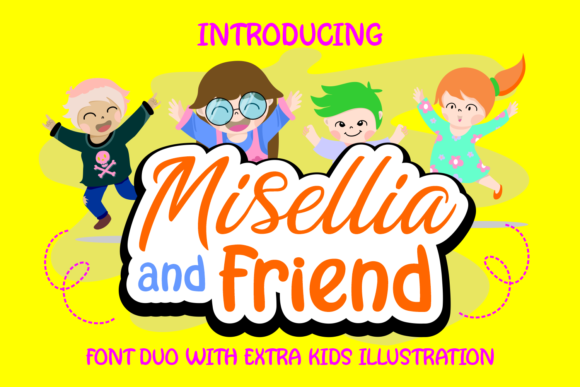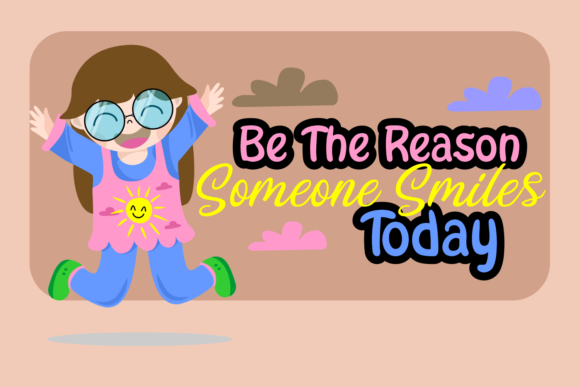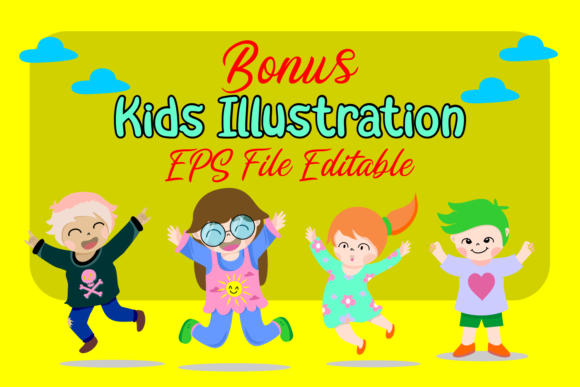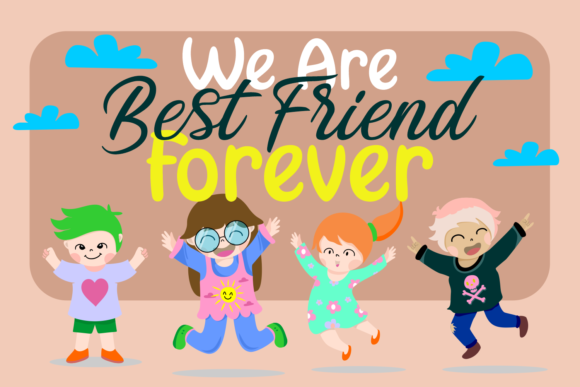
HomeScript FontsMisellia and Friend Duo Font Script Fonts Misellia and Friend Duo Font FacebookXPinterestWhatsApp Misellia and Friend Duo Font Poster 2 Misellia and Friend Duo Font Poster 3 Misellia and Friend Duo Font Poster 4 About Misellia and Friend Duo Font Misellia and Friend is a friendly and cute script font duo that works perfectly for kids’ crafts! DOWNLOAD ON CREATIVE FABRICAThis font is sold and delivered by Creative Fabrica. Font Canyon may earn a commission if you buy through this link. People also explored Sweet Home Font Leightonz Font Ancient Script Font Torgan Font Bangkebui Hand Cream Font December Pastel Font Baby Sillentha Script Font Madrosah Font 273 0 TagsMisellia and Friend Duo Font Previous articleSansino FontNext articleGwothmey Font LEAVE A REPLY Cancel reply Comment: Please enter your comment! Name:* Please enter your name here Email:* You have entered an incorrect email address! Please enter your email address here Website: Save my name, email, and website in this browser for the next time I comment. Personal Use Free Burgie Personal Use Free Read more about this font DangeRNighT Font Personal Use Free Read more about this font Black Friday Personal Use Free Read more about this font Waverly Date Personal Use Free Read more about this font BLOG Where to Buy American Fonts Online in 2024 Where to Buy American Fonts Online: The Ultimate Guide for 2024 Looking for the perfect American font to elevate your design projects? You're in the... Free vs Paid Fonts: Why Investing in Premium Fonts Is Worth It Exploring Font Trends The 10 Best Handwriting Fonts to Add Personality to Your Designs